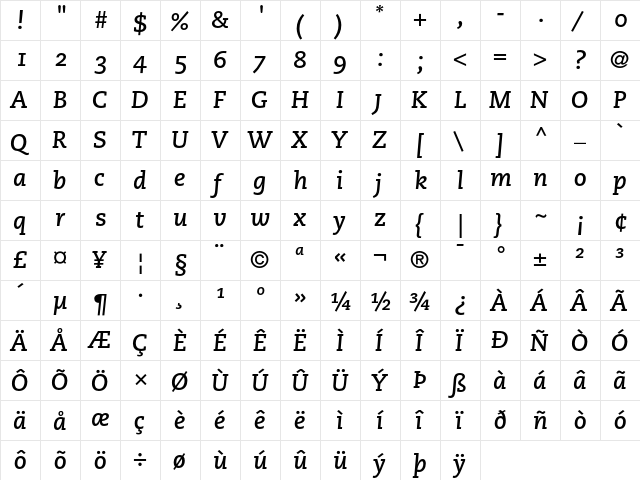
PMN Caecilia 76 Bold Italic Oldstyle Figures
Design Context for PMN Caecilia Typeface
PMN Caecilia brings classic typographic sensibility to the table — its serifs and measured letterforms reflect centuries of print heritage. Its italic angle brings a sense of urgency and motion to the letterforms. The heavy weight commands attention and anchors typographic hierarchies.